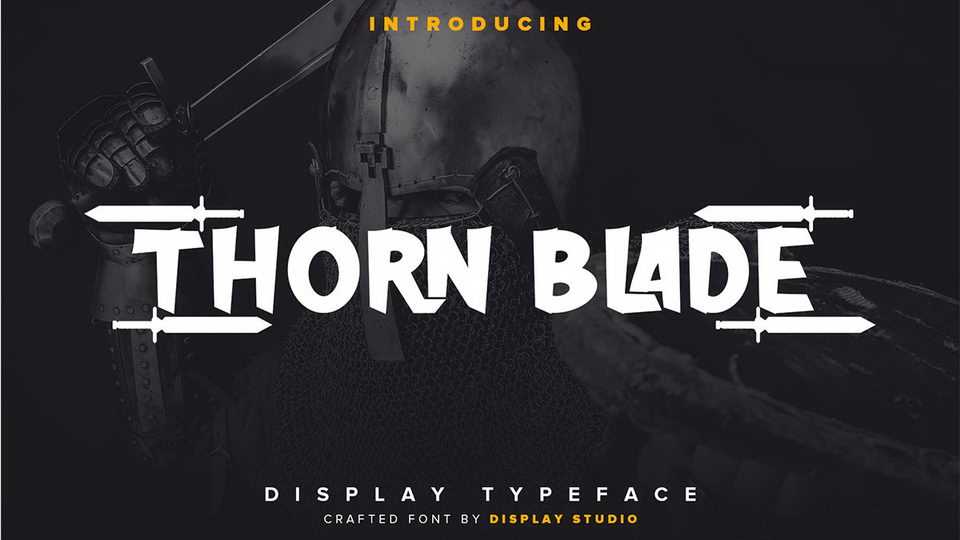
Donwload Thorn Blade font, a bold handpainted brush typeface. It’s perfect for brand logo, posters, packaging to enhance the aestethical aspect of your work.
Designer: Display Studio